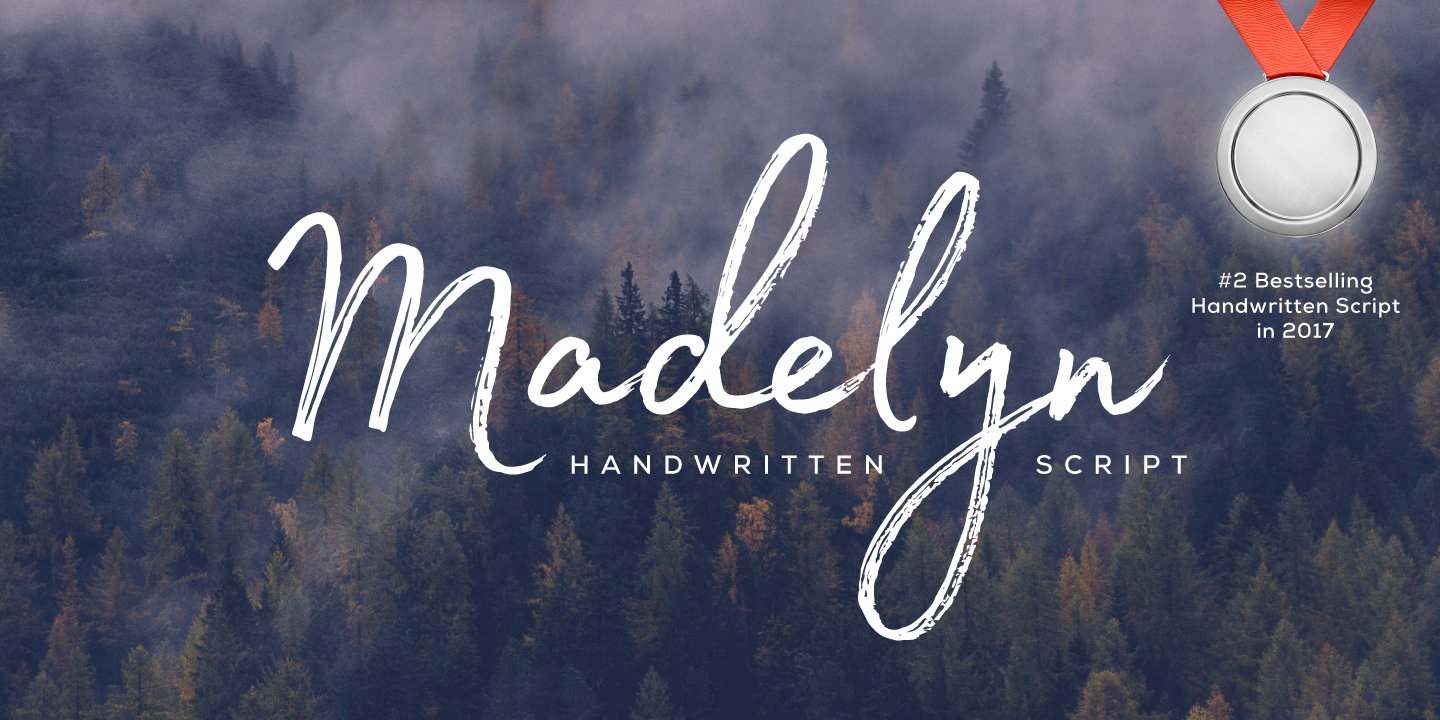
Madelyn Font is perfect for elegant wedding invitations, sophisticated branding materials, luxury boutique signage, feminine lifestyle blogs, upscale beauty salon graphics, romantic greeting cards, high-end fashion magazines, graceful social media content, refined personal stationery, and charming event announcements.
Madelyn Font is exciting because it embodies timeless feminine elegance and sophisticated grace through its flowing, refined letterforms that capture the essence of classic beauty while delivering messages with gentle strength and enduring charm that resonates across generations.
Madelyn Font family includes Regular, Bold, Light, Script, Italic, Condensed, Flourished, and Delicate variations, offering designers a complete elegance toolkit to create graceful visual communications that celebrate feminine sophistication and timeless beauty across diverse applications.
Madelyn Font represents the perfect fusion of contemporary design sensibilities with classic feminine charm, making it an essential choice for brands and designers who celebrate women's strength, beauty, and sophisticated style. This graceful typeface brings refined elegance to any design project, whether you're developing beauty brand identities, creating wedding planning materials, or designing lifestyle content that honors feminine empowerment. The carefully balanced character proportions of Madelyn Font Free Download ensure exceptional readability while maintaining the delicate sophistication that appeals to audiences who appreciate both strength and grace in their visual communications and brand experiences.
Beauty and lifestyle industry professionals consistently choose Madelyn Font for skincare brands, fashion boutiques, and women-focused services because of its ability to communicate elegance, trustworthiness, and understanding of feminine aesthetics. The font's graceful appearance makes it particularly effective for targeting sophisticated women and creating brand experiences that celebrate both inner strength and outer beauty.
Madelyn Font excels in luxury retail and hospitality environments where personal attention and refined service are paramount. High-end spas, boutique hotels, and exclusive salons rely on this font to create materials that reflect their commitment to feminine luxury and personalized care standards.
The wedding and event planning sectors have embraced Madelyn Font for bridal services, elegant celebrations, and romantic occasions. Its sophisticated visual character helps planners create materials that honor life's most precious moments while communicating the attention to detail and refined taste that discerning clients expect from their most important celebrations and milestone events.